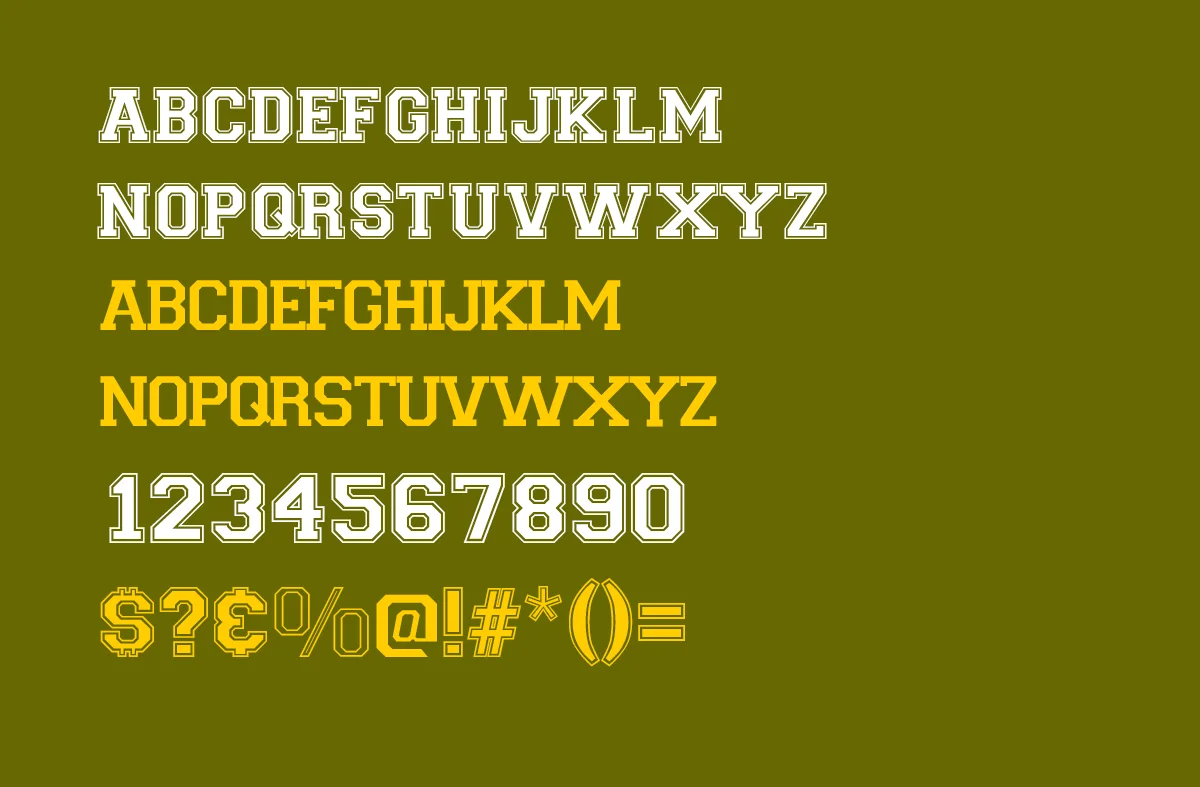
Varsity fonts capture that classic athletic spirit, strong, bold letters that scream team pride. They’re perfect for sports posters, school projects, and anything that needs nostalgic game-day energy.
Designer: Commonly credited to Igor Grovich; modern styles expanded by various type foundries
Released: Style first appeared in collegiate apparel around the 1910s; digitized in the late 1990s
Style: Block slab serif with athletic lettering inspiration
All-caps block letters with optional outlines or shadow
Numbers and punctuation styled to match uniform lettering
Built-in effects like 3D, stitching textures, and layered colors
Ideal for sports posters, team jerseys, alumni event signage, or school merch. Pair with sans-serif fonts (e.g., Bebas Neue, Lato) for clarity and modern balance.